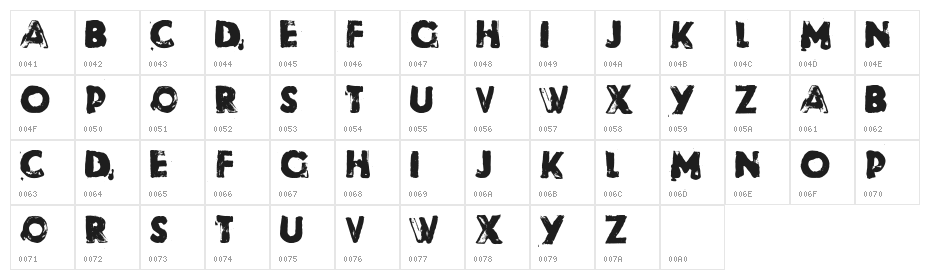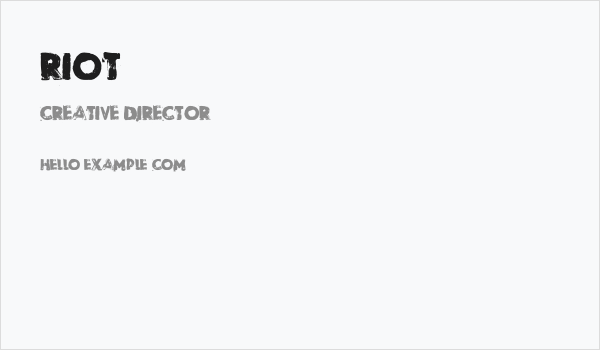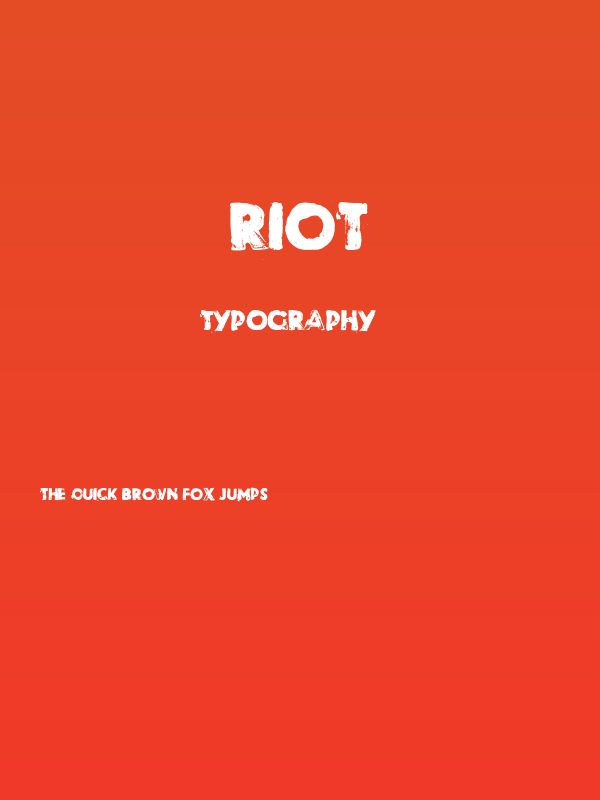
Riot Font
Riot Description
This font features a bold and distressed style, characterized by rough, uneven edges and a grunge aesthetic. The letters are uppercase and have a strong, impactful presence, making them suitable for attention-grabbing designs. The texture gives the impression of being hand-painted or stamped, adding a raw and edgy feel. The irregularities in the letterforms contribute to its unique and rebellious look, ideal for projects that require a bold statement. The font's design is consistent across all characters, maintaining the distressed theme throughout.
| Overall Style | Grunge, Edgy |
| Proposed Projects | Ideal for posters, album covers, streetwear branding, and any design needing a rebellious or edgy vibe. |